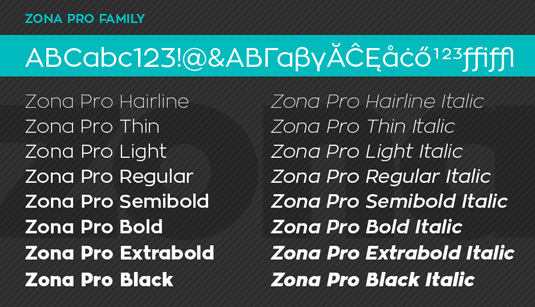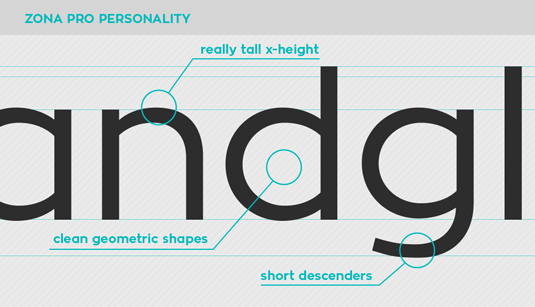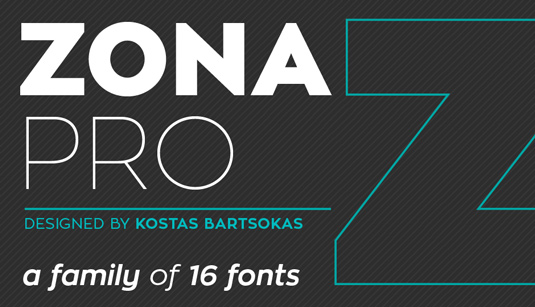
Font of the day: Zona Pro
Every day we showcase the best fonts on the web. Today it's Zona Pro by Kostas Bartsokas, which is free in exchange for a tweet.
Zona Pro by Kostas Bartsokas
Zona Pro is a geometric sans-serif type family, designed by Kostas Bartsokas. Available from Ten Dollar Fonts, the typeface "draws inspiration from 1920's geometric style faces, having clean and highly readable shapes, and mixes it up in the heavier weights with a slight variance in the stroke widths, lending it a grotesque-ish unique and distinctive look".